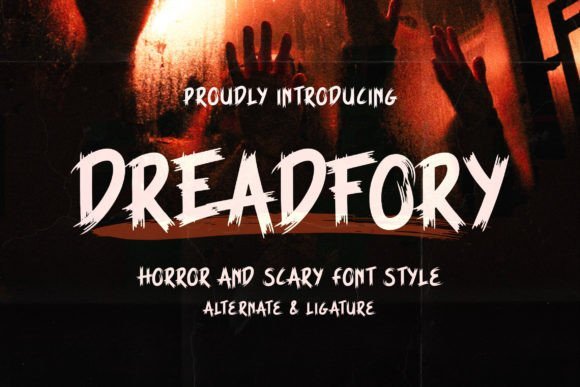
Unleash Your Inner Horror: Introducing the Dreadfory Font
You know that moment when a spark of creativity strikes, and you’re suddenly flooded with ideas for your next spooky project? Maybe it’s a horror movie poster, a haunted house flyer, or a t-shirt design that’s sure to send chills down people’s spines. Whatever it is, the key to bringing it to life is the right font – and that’s where the Dreadfory Font comes in.
This eerie display font is specifically designed to add a touch of macabre to your scary crafts, horror-themed merchandise, and any other project that requires a spectacular look. As a designer, you know how difficult it can be to find the perfect font to match your vision. That’s why the Dreadfory Font is such a valuable addition to your toolkit – it’s the perfect way to give your projects a hauntingly beautiful touch.
- Unique Characteristics: Features a unique, distressed design with a horror theme, perfect for creating a spooky or eerie atmosphere in designs
Dreadfory Font Review
I recently had the chance to work with the Dreadfory Font, and I must say, it’s a unique and interesting addition to any design project. ✨ Here are a few things that I think work well:
- The font’s bold, gothic style adds a sense of drama and mystery to any text. It’s perfect for horror-themed designs or anything that needs a touch of darkness.
- The font’s versatility allows it to be used in a variety of contexts, from body text to headlines.
- The font’s distinctive design makes it stand out from more common fonts, adding a touch of personality to any project.
- The font may be too intense for some projects, and can be overwhelming if used extensively.
- The font’s design can make it difficult to read at smaller font sizes.
- The font may not be suitable for projects that require a more neutral or subtle aesthetic.
Overall, I think the Dreadfory Font is a great addition to any design project that needs a bold, attention-grabbing font. However, it’s essential to use it thoughtfully and in moderation to avoid overwhelming the design.
Getting the Most Out of Dreadfory Font
For the best results, use Dreadfory Font in conjunction with bold or italic text styles. Experiment with different font sizes and combinations to create visually appealing designs. Dreadfory Font is particularly effective for creating edgy, industrial designs.
Dreadfory Font is commonly used in designs that require a bold, edgy aesthetic, such as:
- Industrial or machinery designs
- Retro-futuristic designs
- Dark or gothic-themed designs